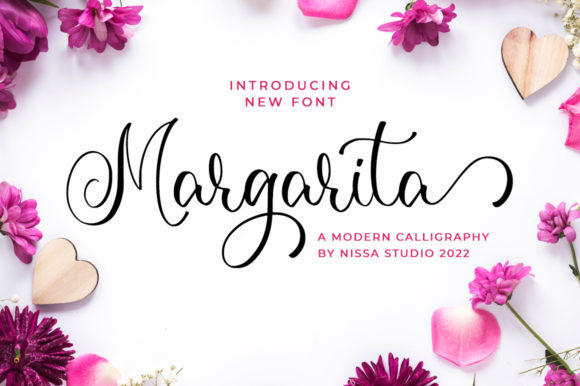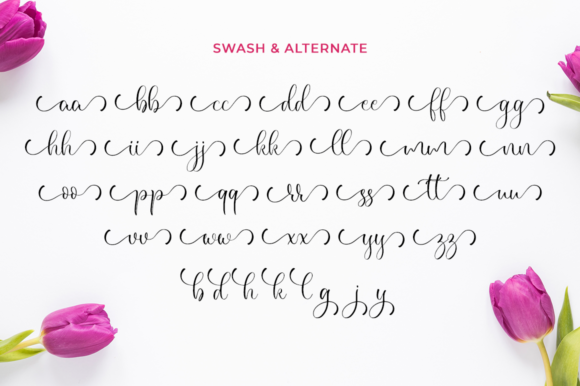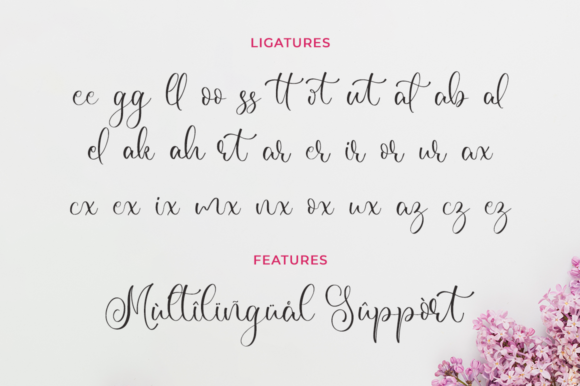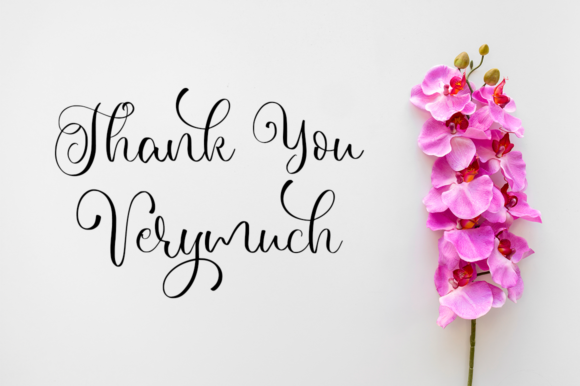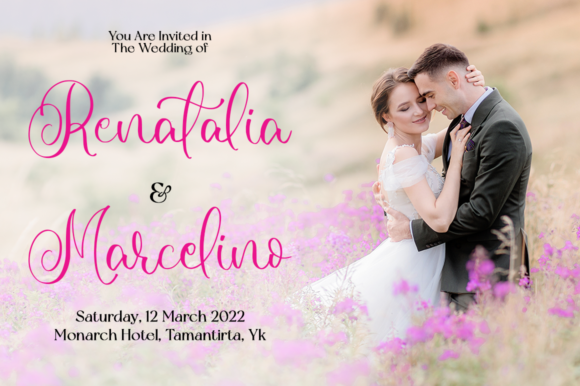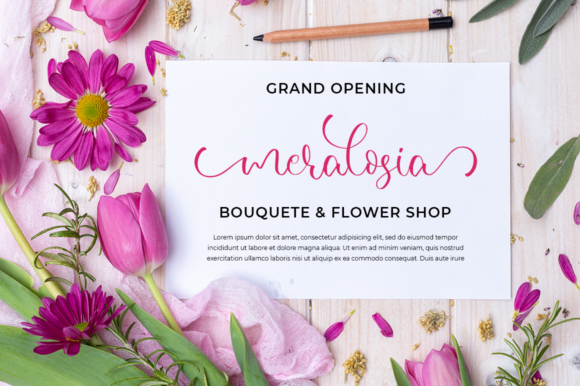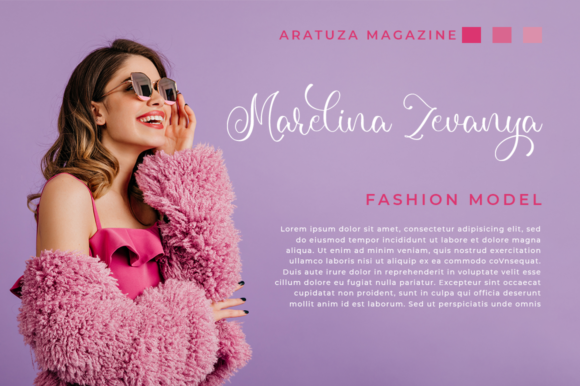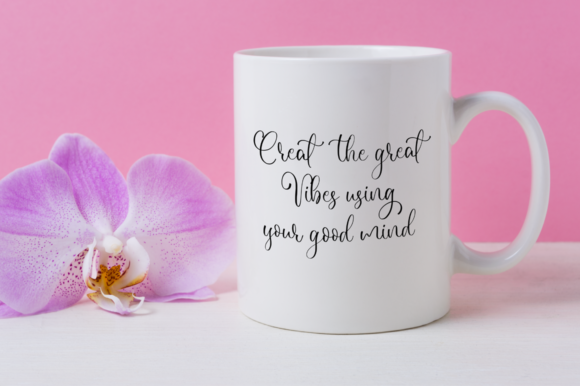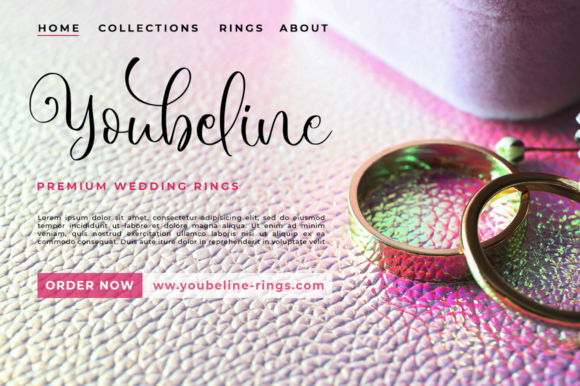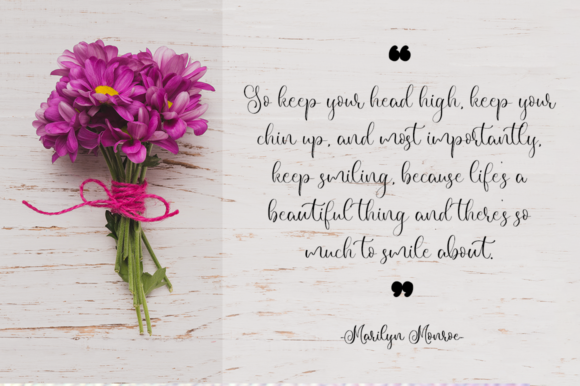
Margarita Font
About Margarita Font
“Margarita,” an elegant handwritten font, exudes both gorgeousness and distinctiveness. Crafted to perfection, it lends its beauty to a variety of design projects, making it an ideal choice for wedding invitations, thank-you cards, quotes, greeting cards, logos, business cards, and any other design that calls for a customized touch.
The allure of “Margarita” lies in its elegant script, which adds a touch of sophistication to your designs. Imagine it gracing wedding invitations, where each stroke contributes to the romantic and memorable atmosphere of the occasion. The font becomes a beautiful representation of personalized elegance.
In the realm of thank-you cards and quotes, “Margarita” stands out, delivering a customized touch that elevates your expressions of gratitude or inspirational messages. Its distinctiveness adds character, turning simple words into visual delights.
For logos and business cards, “Margarita” becomes a signature element, creating a brand identity that is not only visually appealing but also carries a sense of refinement. The elegant handwritten script leaves a lasting impression on your audience.
As a PUA encoded font, “Margarita” offers easy access to a range of glyphs and swashes, providing you with the flexibility to customize and enhance your designs. This feature-rich font opens up creative possibilities, allowing you to tailor each project to your unique vision.
Incorporate “Margarita” into your design arsenal and let its elegance and distinctiveness shine across your creative endeavors. May each letter become a brushstroke of beauty, turning your designs into captivating expressions of personalized artistry.